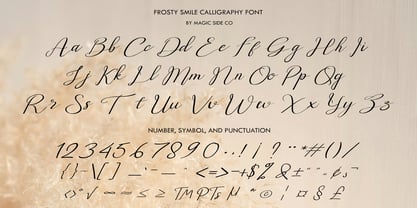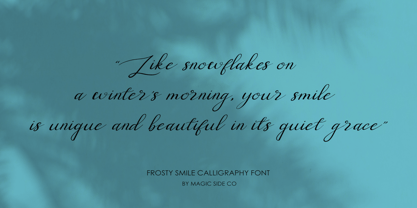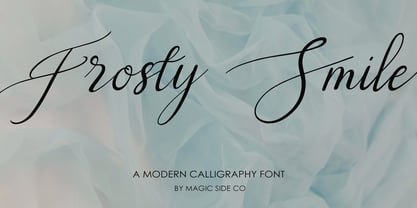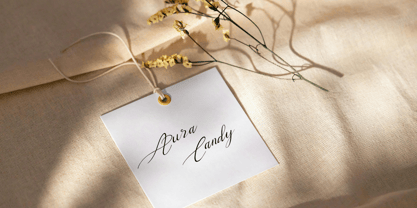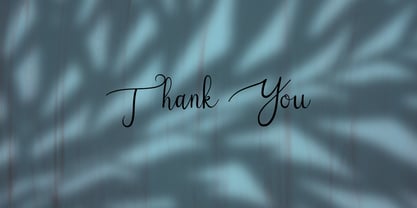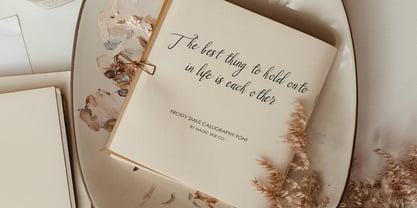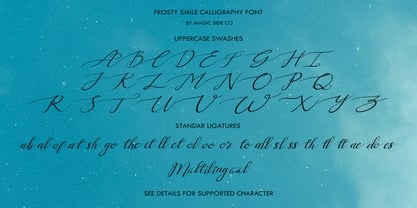
Frosty Smile
La familia tipográfica Frosty Smile fue diseñada por y publicada por Magic Side Co. Frosty Smile contiene 2 estilos y opciones de paquete familiar. Más información sobre esta familia
Frosty Smile is a charming and playful script typeface inspired by the warmth and cheer of the holiday season. Its flowing, handwritten style captures the essence of joy and creativity, making it an ideal choice for designs that need a touch of personality and whimsy. The typeface features smooth, rounded strokes and casual letterforms, creating a relaxed yet polished look.